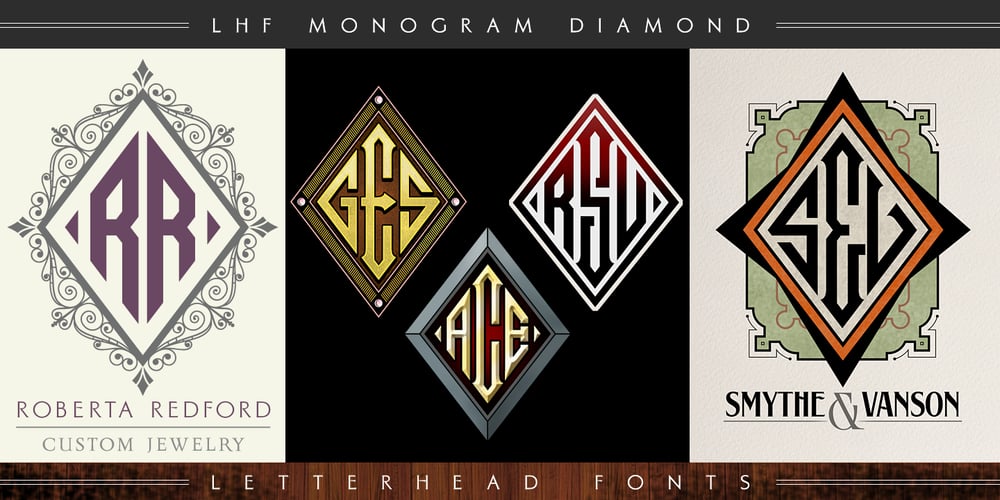
LHF Monogram Diamond
LHF Monogram Diamond font
LHF Monogram Diamond Font Family was designed by John Davis and published by Letterhead Fonts. LHF Monogram Diamond contains 4 styles and family package options. Set includes 4 fonts that work together to create quick and professional monogram designs. Inspired by early 1900’s artist J.M. Bergling. LHF Monogram Diamond 1 includes the entire alphabet for the left side of the monogram. LHF Monogram Diamond 2 contains the alphabet for the center. LHF Monogram Diamond 3 contains the alphabet for the right side of the monogram. LHF Monogram Diamond Borders contains a variety of borders and backgrounds to use with the letters. Use the fonts together to create a personalized design. Printable keyguide included.